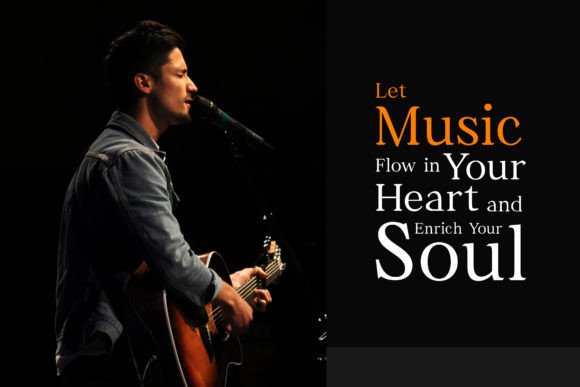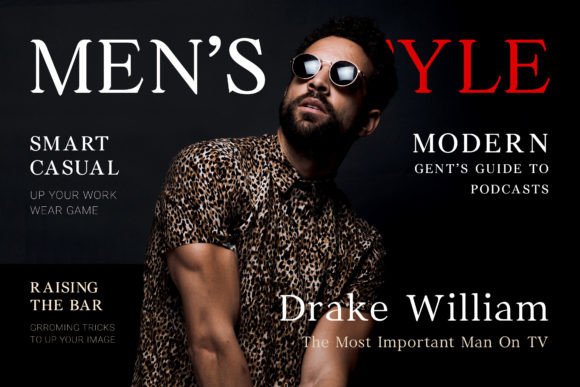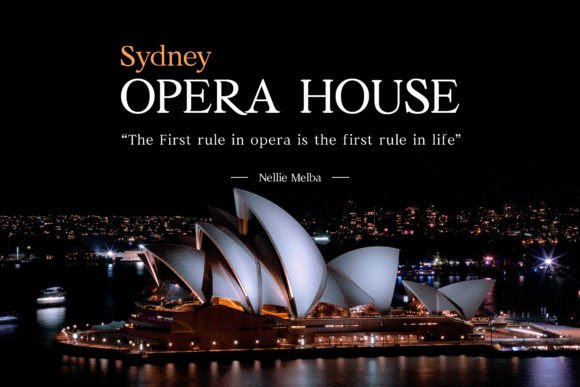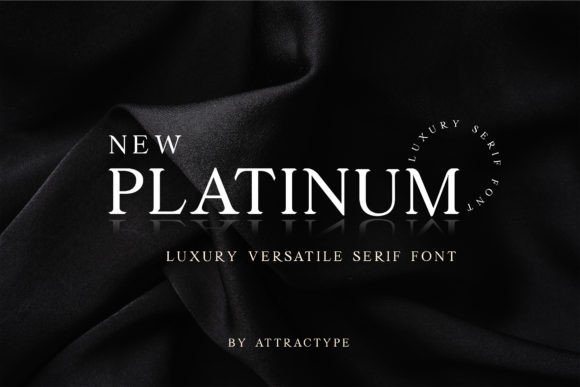
Introduction to New Platinum Font
New Platinum is a modern and luxurious serif font.
Fashionable, stylish, and incredibly versatile, this font is a great addition to your fonts library as it has the potential to elevate any creation .
Why Choose New Platinum Font?